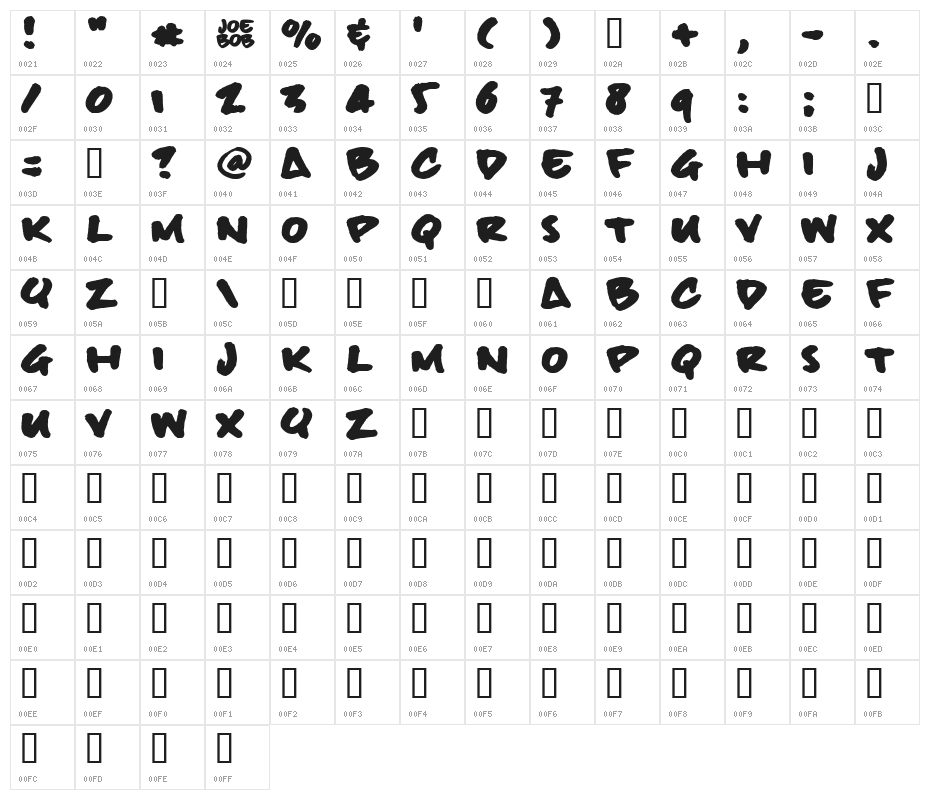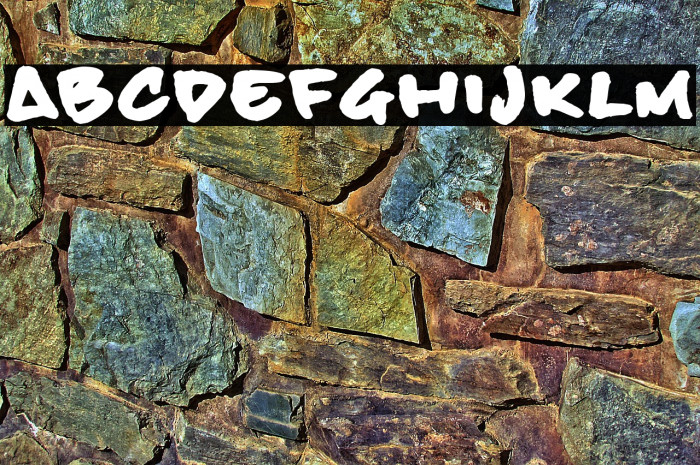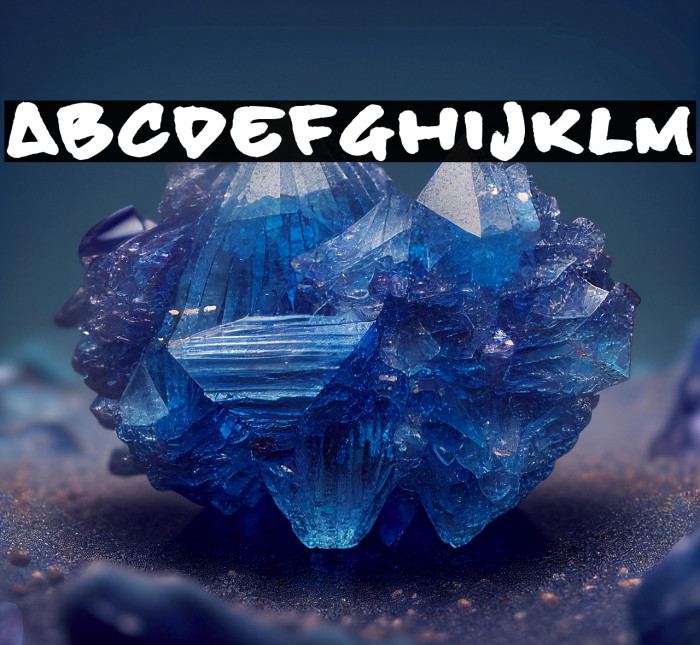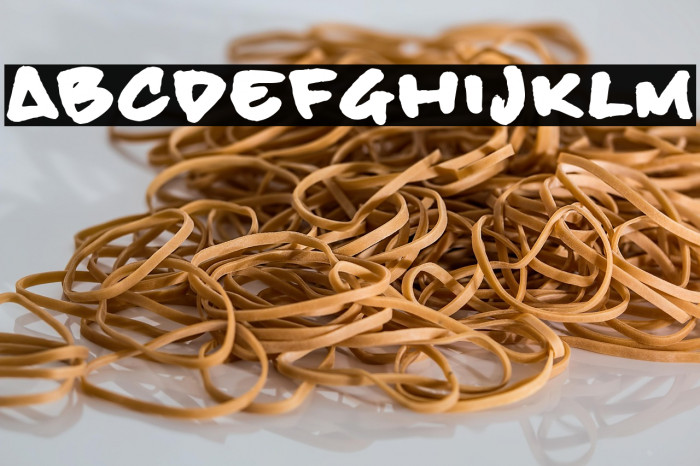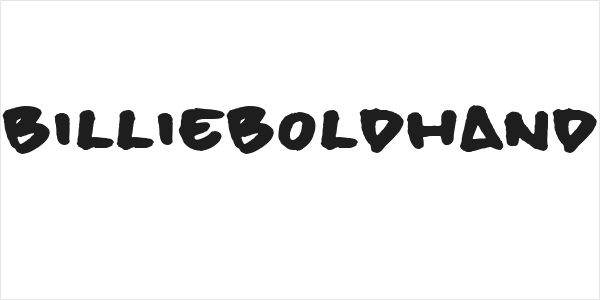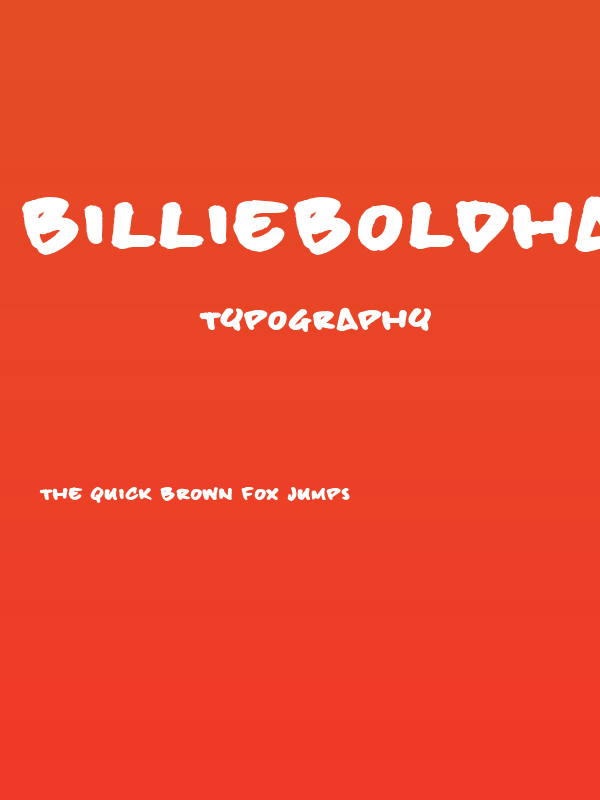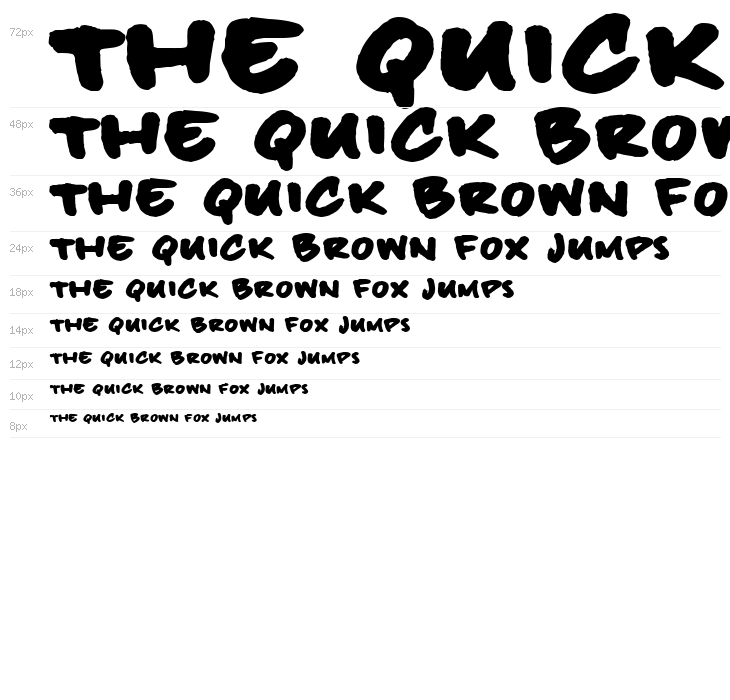
billieBoldHand Font
billieBoldHand Description
This font features a bold, handwritten style with a playful and energetic appearance. The characters are thick and rounded, giving them a strong presence on the page. The strokes are uneven, adding to the casual, informal feel of the typeface. The uppercase and lowercase letters maintain a consistent style, with a slightly exaggerated flair in some characters. Numbers and special characters follow the same bold and dynamic design, making the font versatile for various uses. The overall look is both modern and approachable, suitable for projects that require a personal touch.